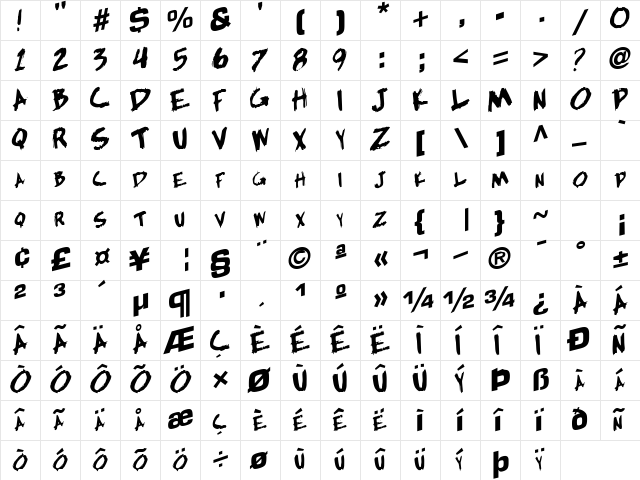
Hardly Regular
Design Context for Hardly Typeface
Hardly is a composed and adaptable typeface that performs quietly and consistently across a wide range of design contexts.
Pro Tip: Pair Hardly with a font of contrasting weight or personality to build a more expressive typographic hierarchy.